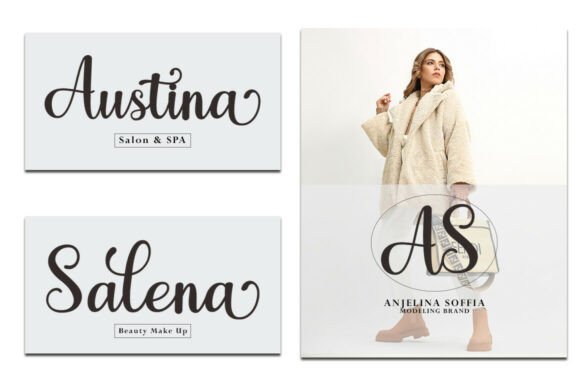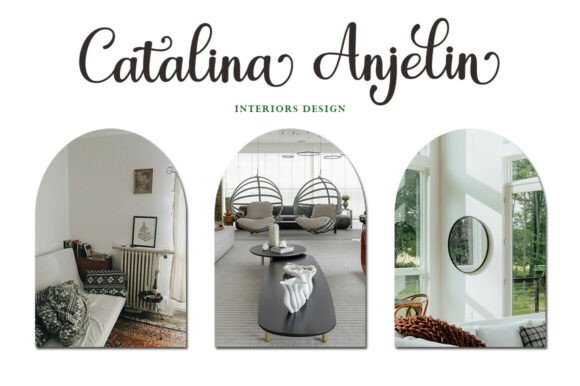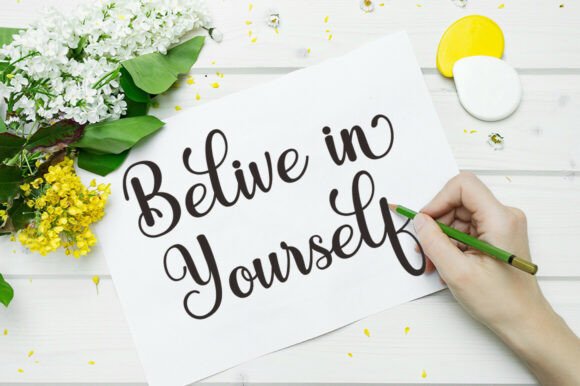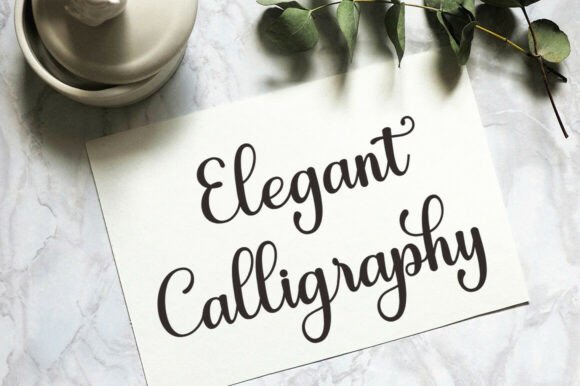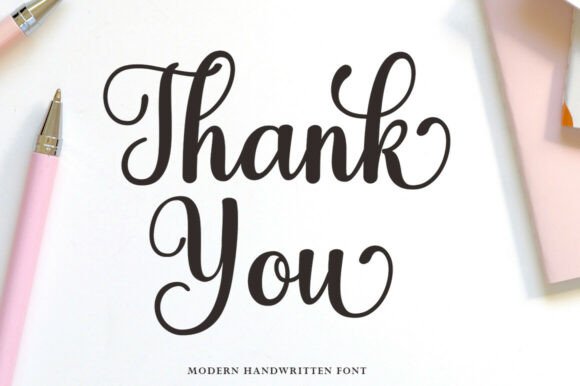
Discover the Perfect Blend of Bohemian Charm and Elegance
As a designer, there’s nothing quite like the thrill of bringing a project to life. It’s that moment when your idea transforms into a visual masterpiece, and you can’t help but feel a sense of pride and accomplishment. For me, that moment often begins with the perfect font – one that captures the essence of my creative vision and sets the tone for the entire design. That’s why I’m excited to introduce you to the Boho Stylish Font, a modern handwritten font that exudes bohemian charm and elegance in every curve of its letters.
This versatile font is not just a pretty face; it’s a valuable tool for designers looking to add a touch of sophistication and personality to their work. Whether you’re creating branding projects, wedding invitations, or social media graphics, the Boho Stylish Font is sure to make your design stand out from the crowd.
Key Features of Boho Stylish Font
- Font Style: A unique blend of bohemian and stylish elements, ideal for creative and artistic designs.
- Unique Characteristics: Features hand-drawn elements, intricate details, and a mix of uppercase and lowercase letters to add a touch of elegance and sophistication.
Boho Stylish Font Review
I must say, I was immediately drawn to the Boho Stylish Font’s eclectic vibe ✨. The font’s mix of elegant and whimsical elements makes it perfect for projects that require a touch of bohemian flair. The font’s versatility is impressive, and it can be used in a variety of contexts, from fashion and lifestyle brands to art and creative projects.
The font’s ligatures and swashes add a level of sophistication and craftsmanship ✨, making it feel premium and high-end. The font also comes in multiple weights and styles, which is great for designers who want to create a consistent visual identity across different platforms.
- Ligatures and swashes add a level of sophistication
- Versatile and can be used in a variety of contexts
- Multiple weights and styles available
- The font can be quite ornate, which may make it difficult to read at smaller sizes ⚠️
- The font’s eclectic style may not be suitable for all design projects
Overall, I think the Boho Stylish Font is a great choice for designers who want to add a touch of bohemian flair to their projects. While it may have some limitations, the font’s unique style and versatility make it a great addition to any design library.
The Boho Stylish Font is perfect for creative projects that require a unique and eclectic touch. Some common use cases include:
- Food and lifestyle blogs
- Travel and adventure marketing
- Artistic and creative portfolios
Alternatives to Boho Stylish Font for Designers
Great Vibes Font is a modern, elegant script font that is perfect for creating a bohemian-inspired look. It features a fluid, cursive design that is ideal for headings and titles. Great Vibes Font is a great alternative to Boho Stylish Font when you want a more refined and sophisticated look.
Comparison to Boho Stylish Font: Great Vibes Font is more elegant and refined compared to Boho Stylish Font, which has a more casual and eclectic feel.